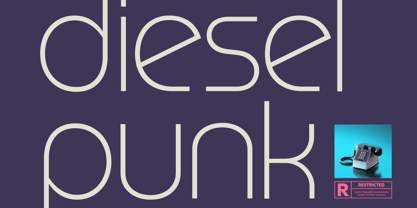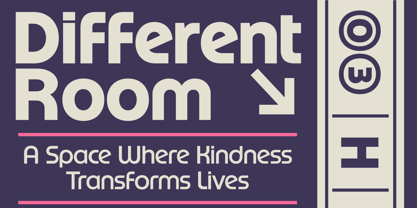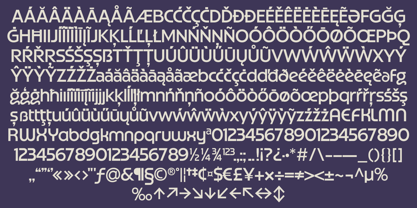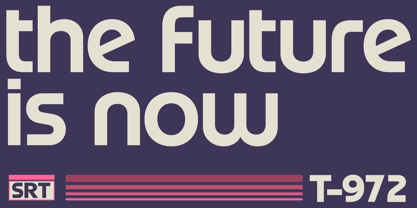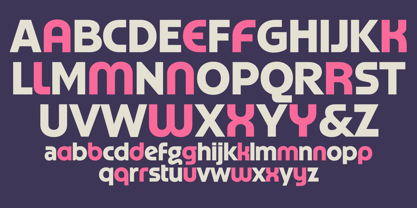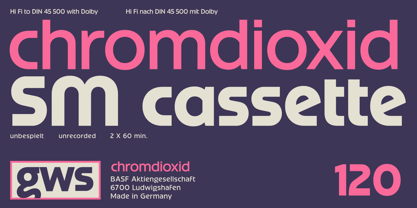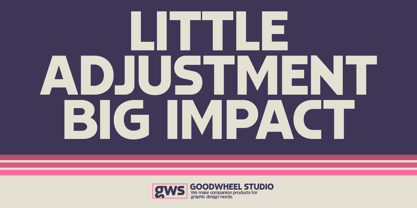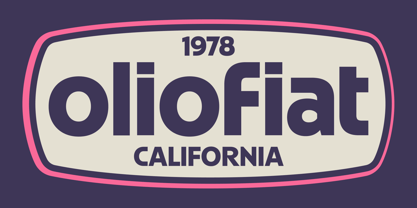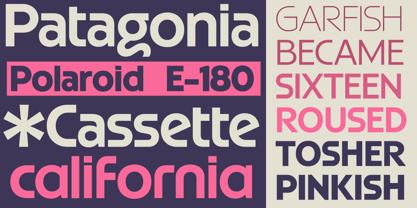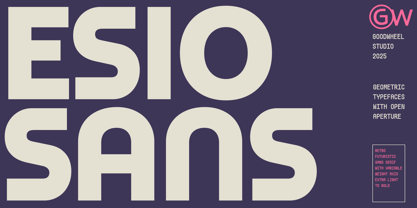
GW Esio Sans
by Goodwheel Studio
The GW Esio Sans Font Family was designed by Ilham Herry, Akbar Gumelar and published by Goodwheel Studio. GW Esio Sans contains 7 styles and family package options. More about this family
Esio Sans is a geometric sans serif typeface that embodies a retro-futuristic spirit, characterized by its open apertures, regular proportions, and sleek, modern shapes. Its substantial yet approachable forms create a striking visual impact while ensuring excellent readability. Offered as a variable font with weights ranging from Extra Light to Bold, this typeface is perfect for creating impactful headlines, branding, posters, and editorial designs that require a blend of futuristic aesthetics and human warmth.
Designers: Ilham Herry, Akbar Gumelar
Foundry: Goodwheel Studio